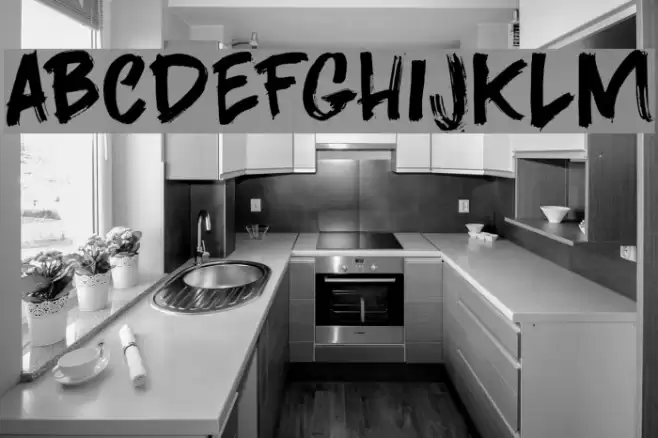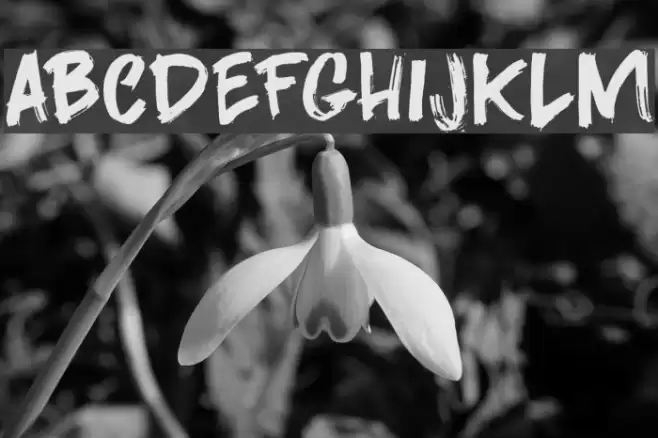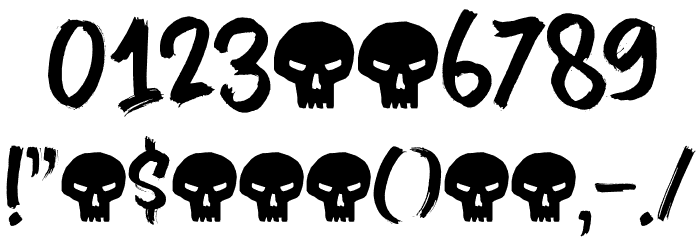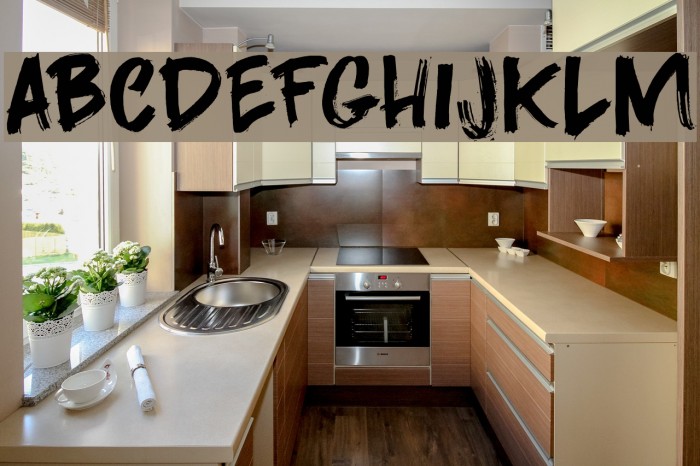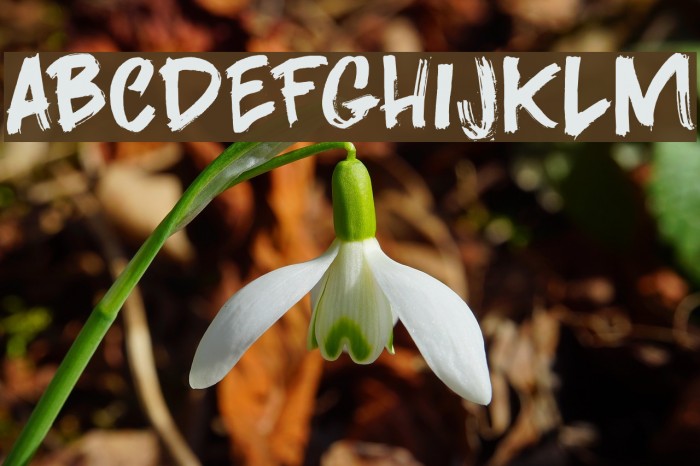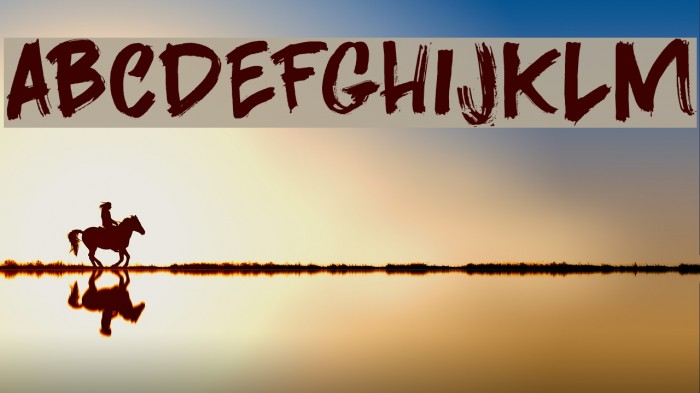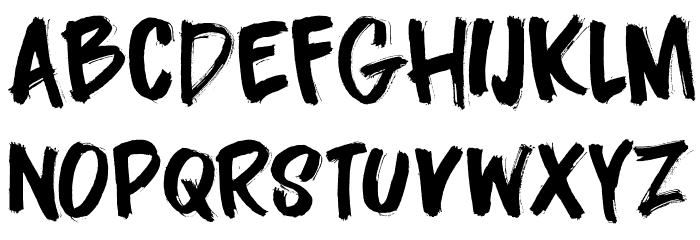
Darkness Rising DEMO Regular Font
Darkness Rising DEMO Regular Description
This font features a bold and expressive style with a brush-like texture that gives it a raw, energetic feel. The characters are irregular and dynamic, with varying stroke thicknesses that add to its edgy and rebellious appearance. The uppercase and lowercase letters maintain a consistent aesthetic, while the numbers and special characters, including skull motifs, enhance its unique and daring personality. This font is perfect for projects that require a strong visual impact and a sense of adventure.
A bold, brush-style font with an edgy, rebellious look from Uncategorized fonts.
- Proposed Projects: Ideal for music album covers, event posters, video game titles, and branding for extreme sports.
- Overall Style: Modern, Edgy